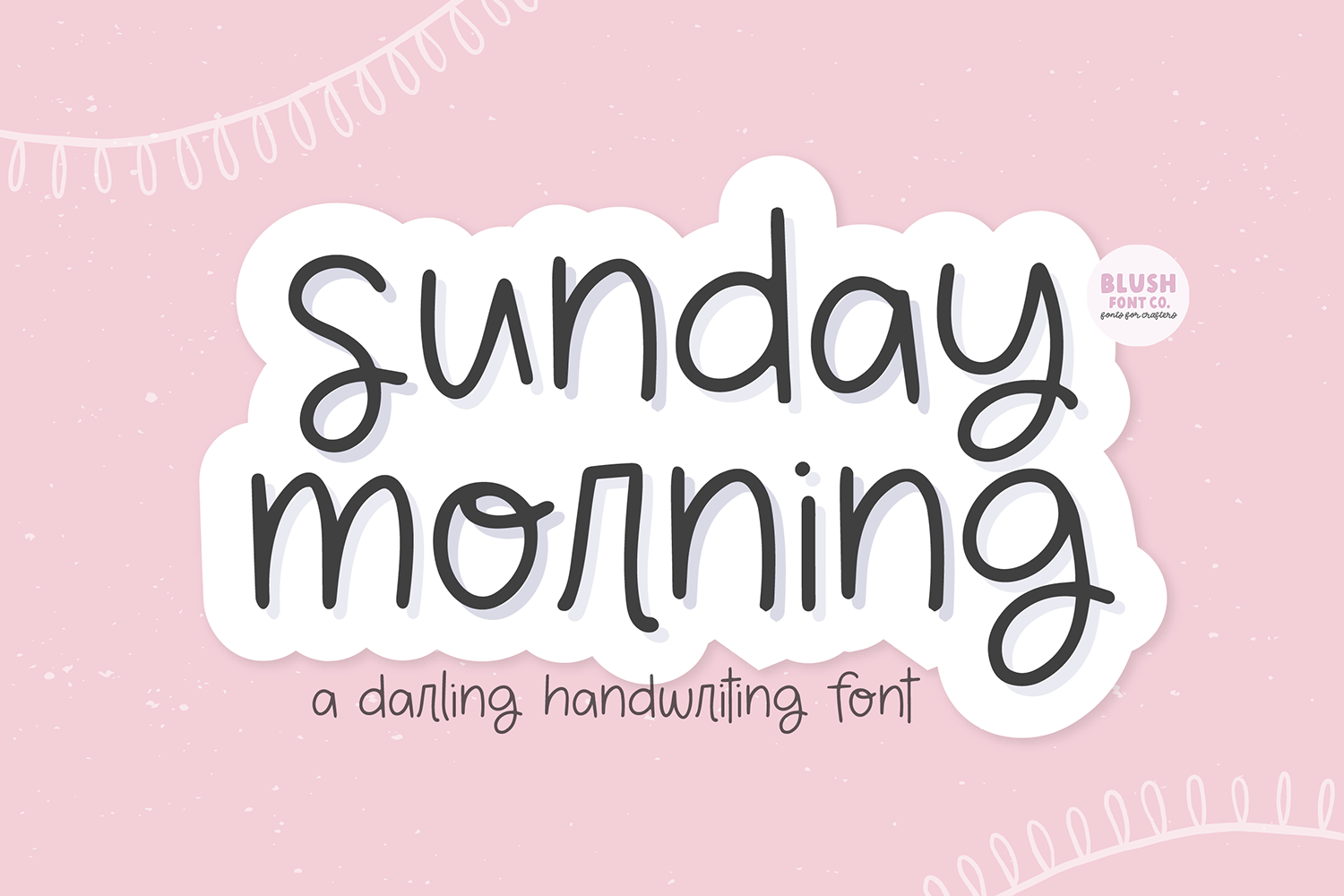
"Sunday Morning" handwriting font.
Sunday Morning is a cute handwriting font that is perfect for social media or crafty projects. Use it for branding, crafts for decor, invitations, and more! This font includes all caps glyphs, numbers, basic punctuation marks, and intl characters!